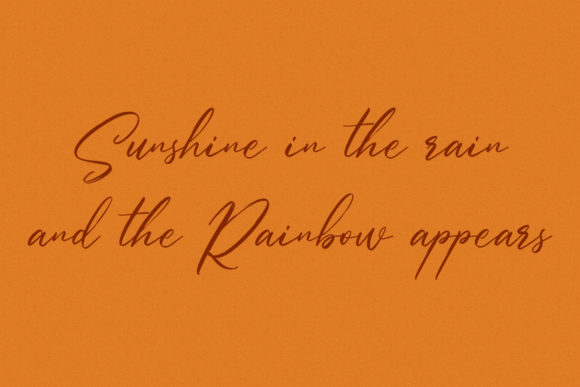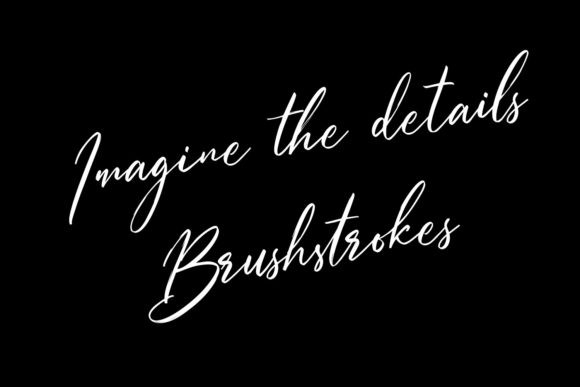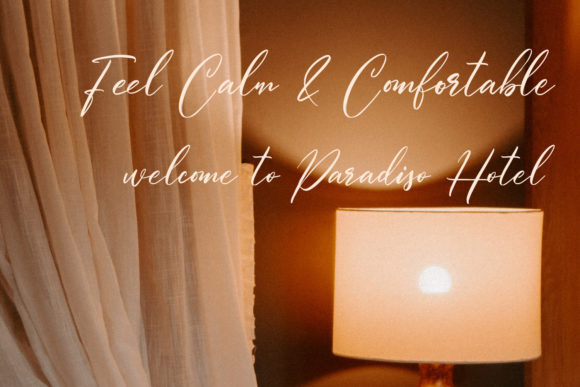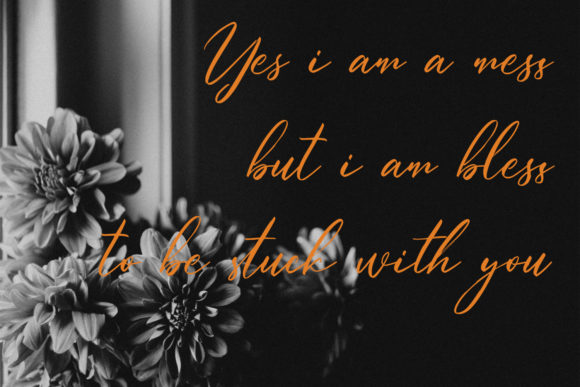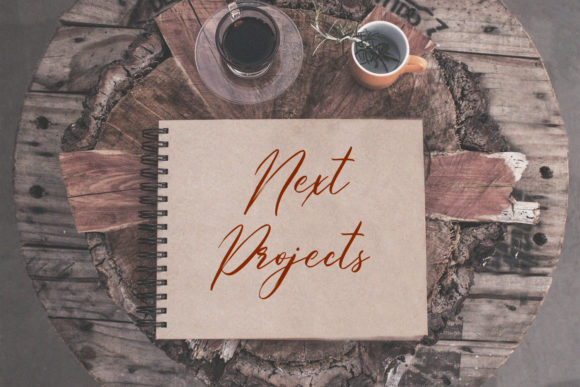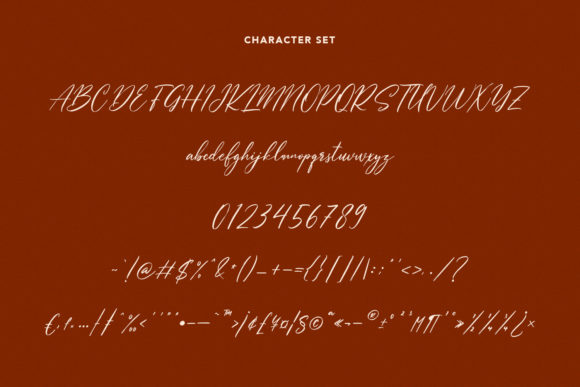
The Perfect Script: Unleashing the Beauty of Blisslovys Font
Have you ever found yourself scribbling in your notebook, trying to capture the perfect phrase to match the beauty of a sunset? The feel of the pen gliding across the paper, the flow of the words, the rhythm of the letters – it’s a moment of pure creative bliss. And that’s exactly what Blisslovys Font is all about.
This elegant script font was designed to bring a touch of timeless classic calligraphy to your projects, with a contemporary atmosphere that’s both balanced and varied. Not too thin, not too thick, Blisslovys Font is the perfect choice for designers who want to elevate their work to the next level.
With its impeccable form and versatility, Blisslovys Font is a valuable addition to any designer’s toolkit. Whether you’re working on a wedding invitation, a logo, or a promotional campaign, this font is sure to bring a touch of sophistication and elegance to your creations.
Blisslovys Font Key Features
- Font Style: Script, Handwritten, Elegant
- Font Size: 300-400 glyphs, including Latin, Cyrillic, and Greek characters
- Unique Characteristics: Unique, flowing connections between letters, elegant swashes, and subtle flair
Blisslovys Font Review
As a designer, I was excited to dive into the Blisslovys Font and see what it had to offer. Here’s my honest review.
- Unique Character: Blisslovys Font has a distinct personality that sets it apart from more generic fonts. Its quirky flair makes it perfect for designs that need a bit of whimsy.
- Legibility: Despite its unconventional appearance, the font is surprisingly legible, even at smaller font sizes.
- Customization Options: The font comes with a range of styles and weights, giving designers plenty of room to experiment and find the perfect fit for their project.
- Over-Use Risk: The font’s unique charm may become overused or cliché if not used thoughtfully. Designers should be cautious not to overdo it.
- Some Letters May Not Be Ideal: While the font is generally legible, some letterforms may not be the most aesthetically pleasing or easy to read.
Overall, I think Blisslovys Font is a great addition to any designer’s toolkit. Its unique character and customization options make it perfect for projects that require a bit of flair. However, designers should be aware of its limitations and use it thoughtfully to avoid overuse and compatibility issues.
Blisslovys Font is ideal for:
- Creating elegant and sophisticated designs.
- Adding a touch of luxury to your branding materials.
- Designing wedding invitations, menus, and other special occasion materials.